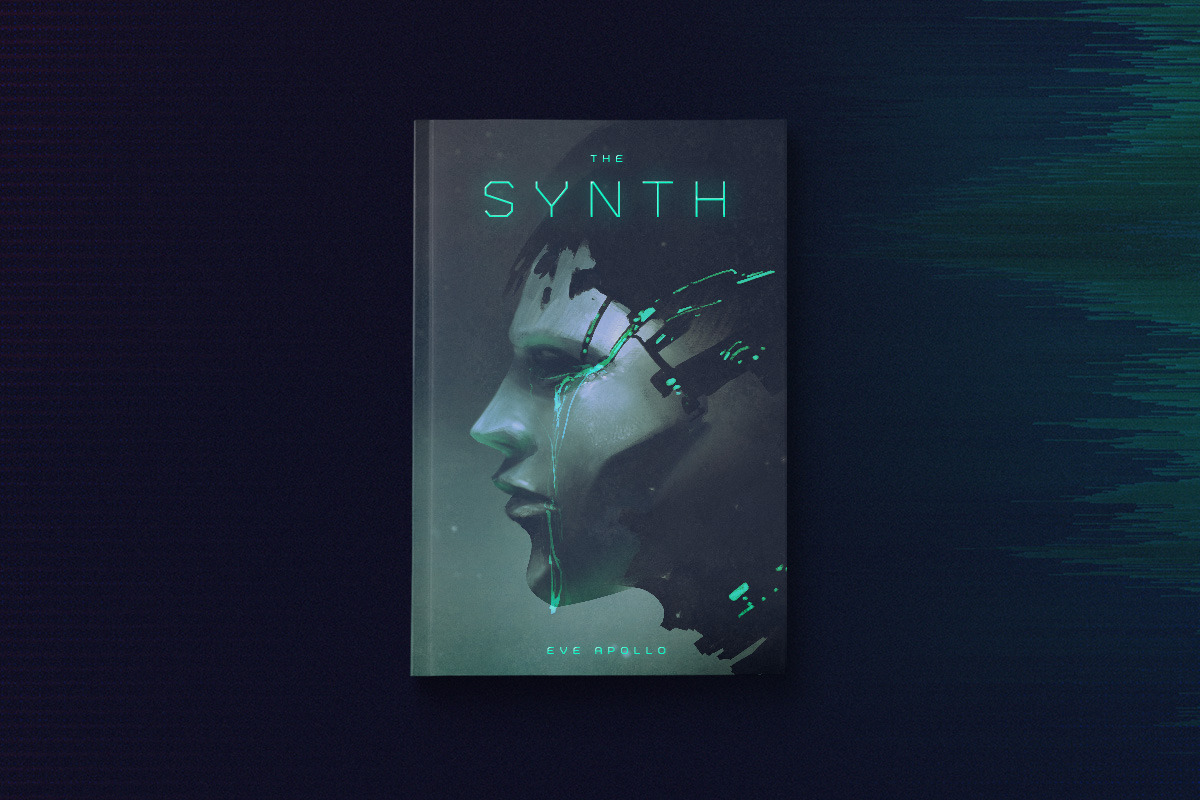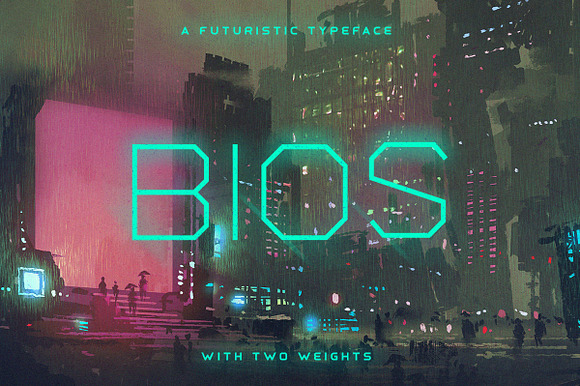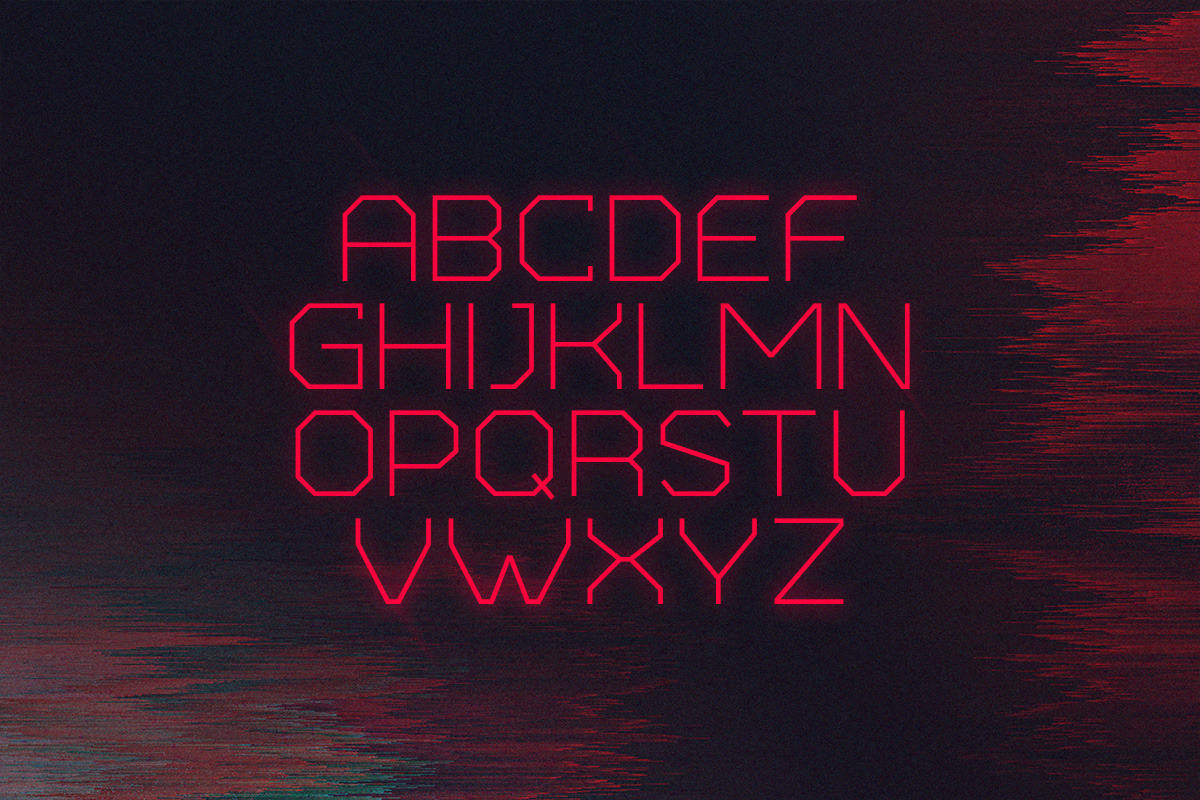
Bios Typeface
Bios is a futuristic font family that comes in two weights. It includes multilingual uppercase letters, numbers and punctuation.
- It includes multilingual uppercase letters, numbers and punctuation.
- Bios Regular
- Bios Bold
Bios Typeface by Tugcu Design Co. fits naturally into Branding, posters, packaging, typography.